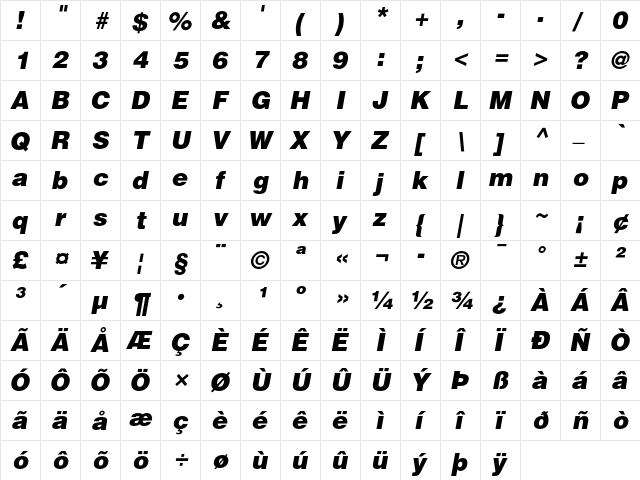
Helvetica Black Oblique Font Preview
Helvetica Black Oblique
Design Context for Helvetica Typeface
Helvetica is a composed and adaptable typeface that performs quietly and consistently across a wide range of design contexts. The dynamic lean of this cut emphasises speed and emphasis in any layout.
Pro Tip: Use Helvetica for emphasis, pull quotes, and subheadings where its slanted energy can add rhythm to the layout.